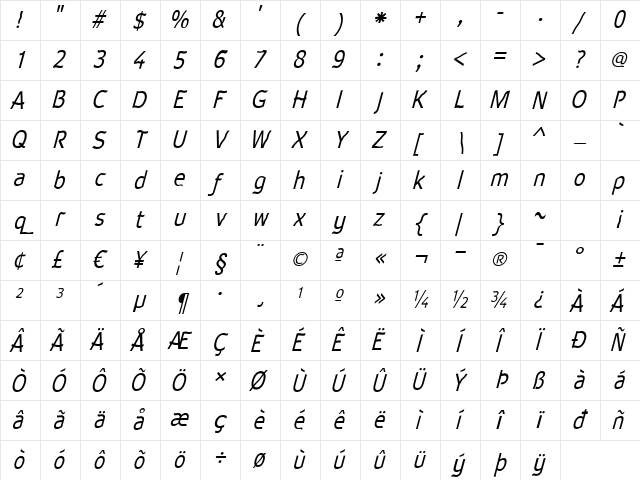
Waverley Italic Regular
Design Context for Waverley Italic
Waverley Italic is a composed and adaptable typeface that performs quietly and consistently across a wide range of design contexts. The slanted form adds forward momentum and visual energy.
Pro Tip: Use Waverley Italic for emphasis, pull quotes, and subheadings where its slanted energy can add rhythm to the layout.